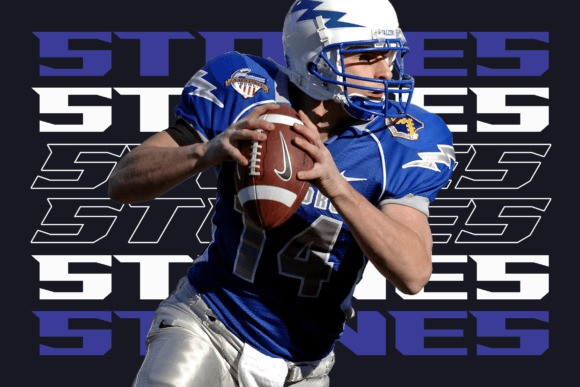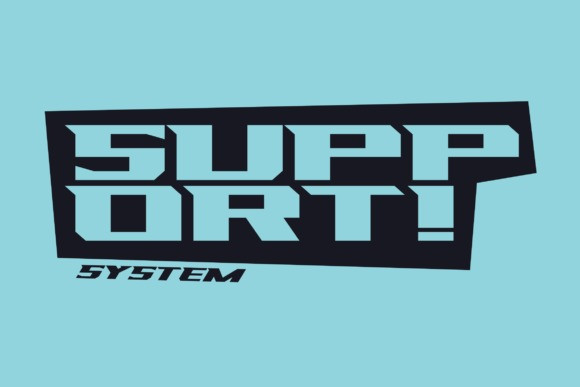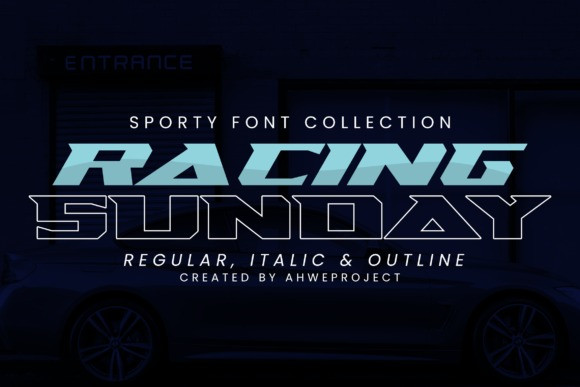
Racing Sunday Font
Racing Sunday Font is a modern techno display font and unique style that instantly add power and movement to your projects.
RacingSunday is very suitable for automotive magazine covers, racing game covers, logos & branding, product design, labels, and so on.